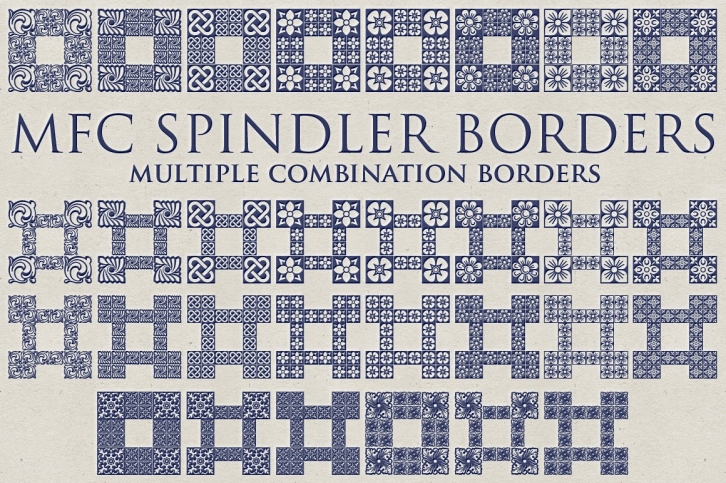
The inspiration source for MFC Spindler Borders is a collection of border treatments revived from the "Catalog 25 TYPE FACES" by Barnhart Brothers & Spindler. The border designs were recreated from two different border sets, "Classic Art Borders" and "Classic Black & White Borders". This collection of borders represents a structured repetition of elements in various ways to create elegant patterns and backgrounds.